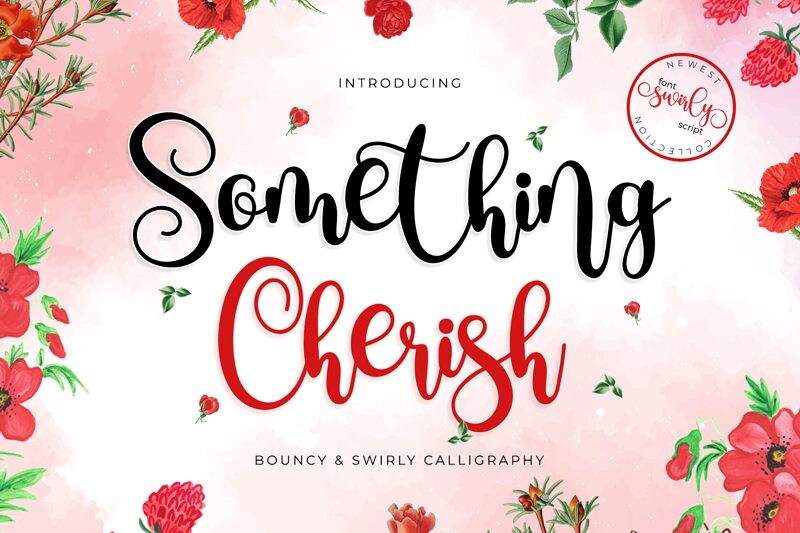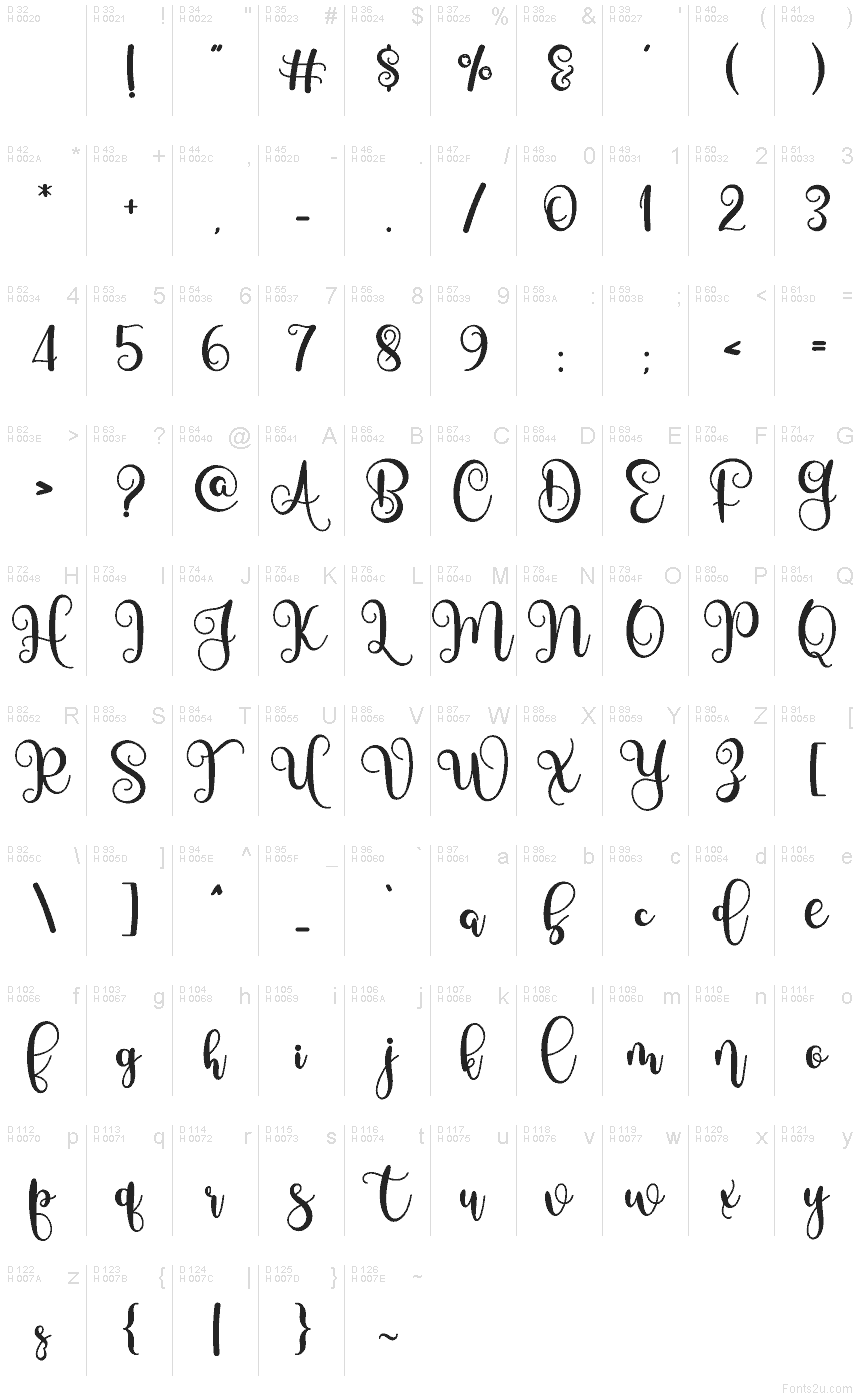
Something Cherish
Something Cherish font by Airotype Studio is a free calligraphy typeface that feels like it was brushed onto thick, textured paper. Big looping curves, playful bounces, and inky, slightly irregular strokes give it that hand-lettered warmth you usually only get from custom signage or a wedding invitation done by a professional scribe. It carries a romantic, storybook charm without looking stiff or formal, so it feels personal the moment you see it.
Using Something Cherish, you can bring that handwritten magic to wedding suites, save-the-dates, baby announcements, Etsy shop branding, boutique logos, packaging, and quote posters. The letters connect in an easy, flowing rhythm that stays legible even at larger sizes, which makes this free font shine on covers and social media graphics. Try pairing it with a clean, light sans serif for body text to let the flourishes breathe and keep your layouts feeling fresh, not fussy.